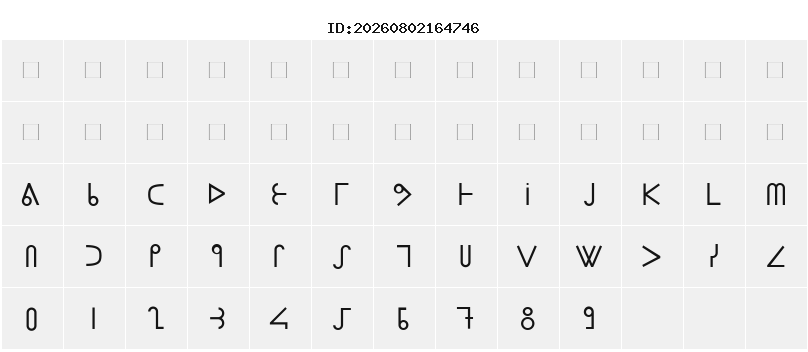
Nunavik Preview
• Font Name: Nunavik
• Full Font Name: Nunavik
• PostScript Name: Nunavik
About Nunavik.ttf
Nunavik.ttf is a modern, elegant sans-serif font designed for ultimate readability and visual harmony. Perfect for branding, headlines, web design, and print materials.